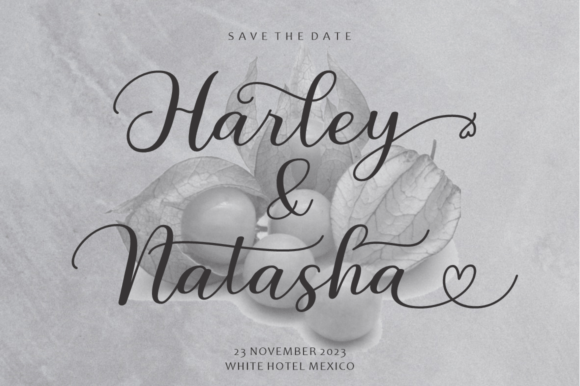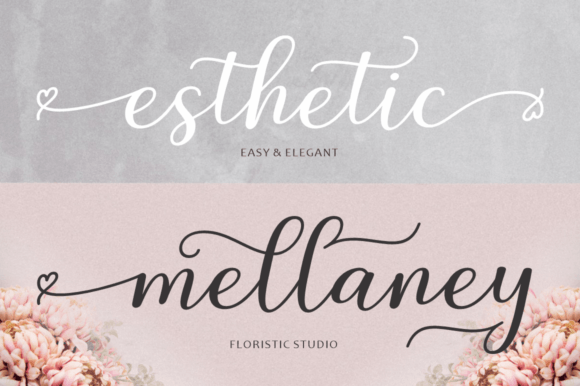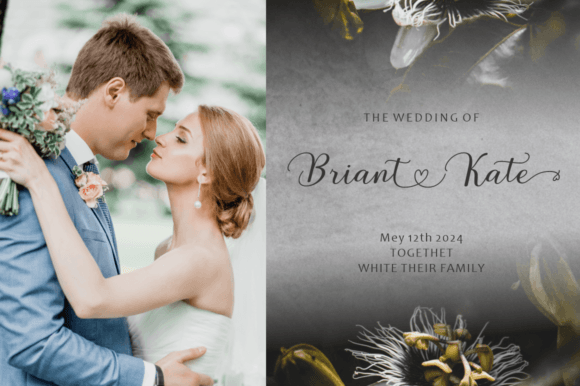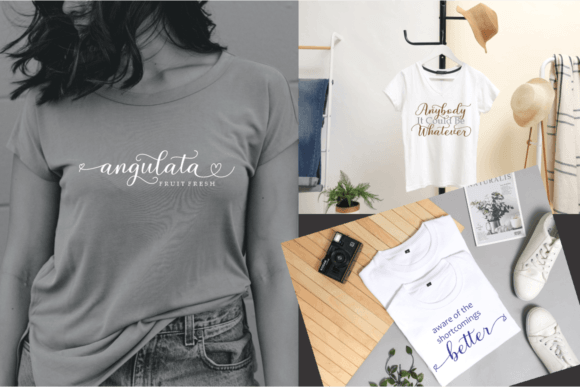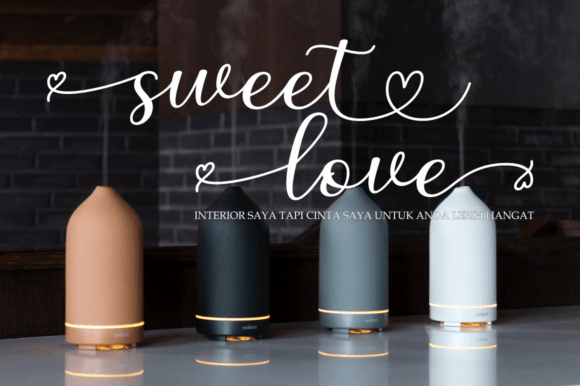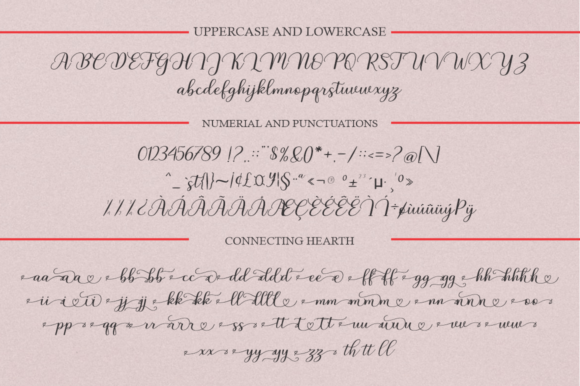
The Ultimate Guide to Angulata Font: Elevate Your Designs with Modern Calligraphy
Have you ever been in the middle of a design project, and suddenly, you just can’t seem to find the right font? I recall a particularly frustrating experience while working on a wedding invitation design. My client wanted something elegant, modern, and truly unique. After hours of scouring through font libraries, I stumbled upon Angulata – a game-changing calligraphy font that instantly elevated my design.
What is Angulata Font?
Angulata is a modern calligraphy font that embodies the current handwriting style. It’s perfect for a wide range of design projects, including branding, wedding invites, magazines, mugs, business cards, quotes, posters, and more. What sets Angulata apart is its extensive collection of variations and options for each letter, allowing you to customize your designs to your heart’s content.
Here’s what I love about Angulata:
- ✨ Versatility: With numerous variations for each letter, Angulata offers endless possibilities for customization.
- ✅ Ease of Use: Despite its extensive features, Angulata is surprisingly easy to navigate, even for those who are new to using OpenType fonts.
- 💫 Modern Aesthetic: Angulata’s modern calligraphy style is perfect for designers looking to add a touch of elegance and sophistication to their work.
And, of course, no font is perfect. Here are a few quirks to keep in mind:
- 🤔 Learning Curve for Advanced Features: While the basics of Angulata are easy to grasp, mastering its advanced features, such as glyphs and stylistic alternates, may require some time and practice.
The Story Behind Angulata
Angulata was inspired by the modern calligraphy movement, which emphasizes fluidity, elegance, and personal expression. The creator of Angulata sought to craft a font that not only captures the essence of contemporary handwriting but also offers designers the flexibility to experiment and innovate.
| What makes Angulata unique? | Angulata’s extensive collection of variations and options for each letter, along with its modern calligraphy style, sets it apart from other fonts. |
Angulata is more than just a font – it’s a tool for creative expression. With its modern calligraphy style, extensive customization options, and ease of use, Angulata is poised to become a staple in every designer’s toolkit.